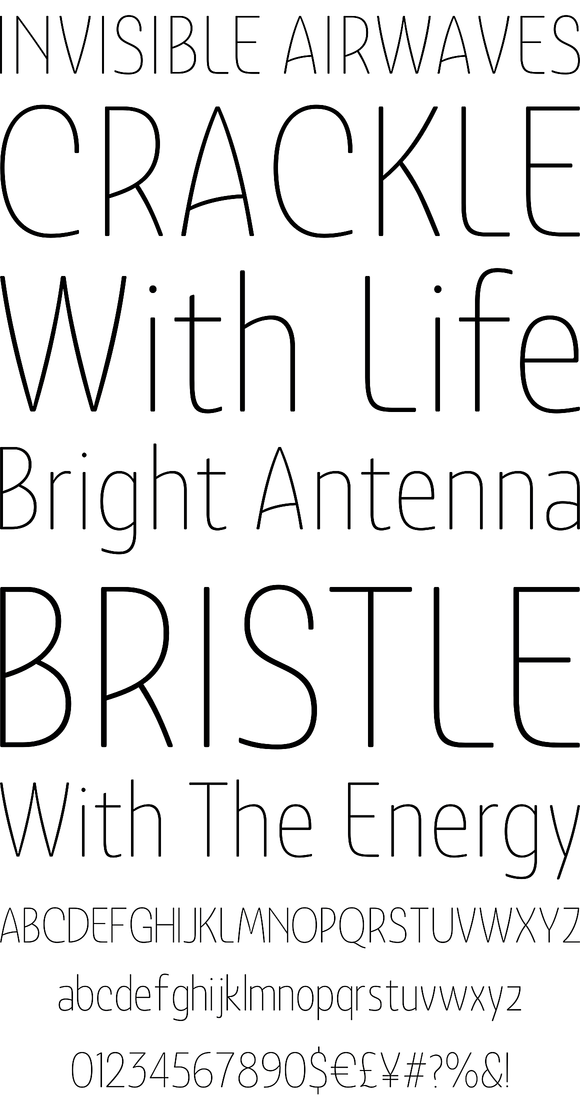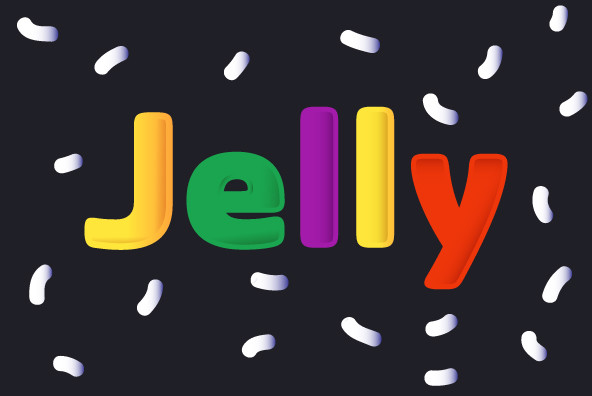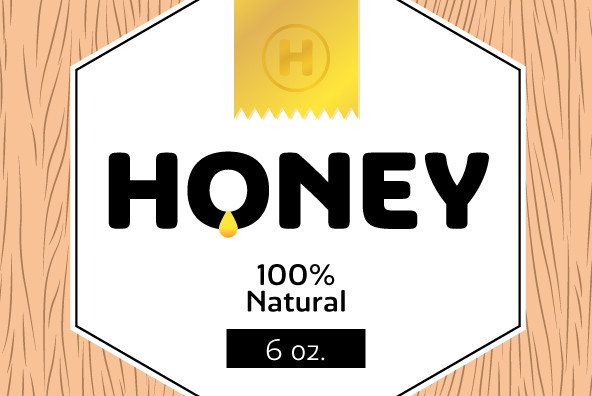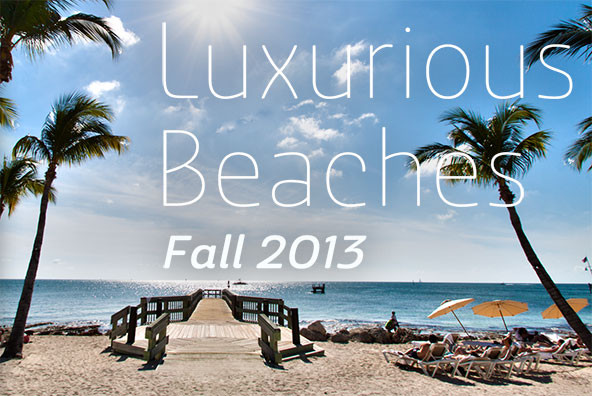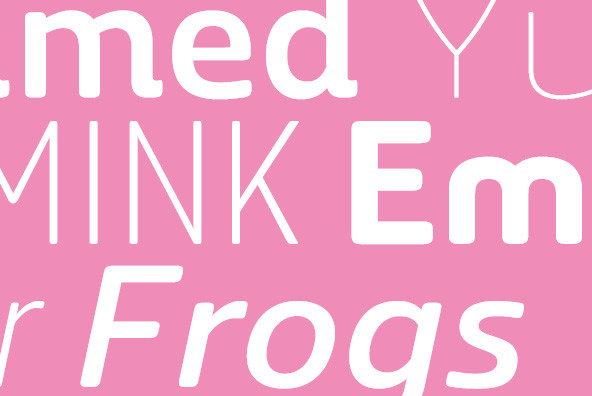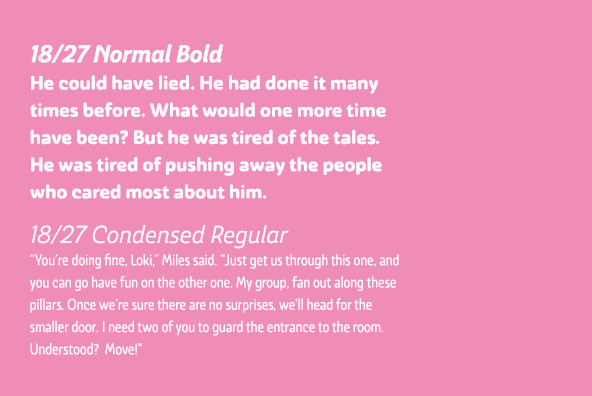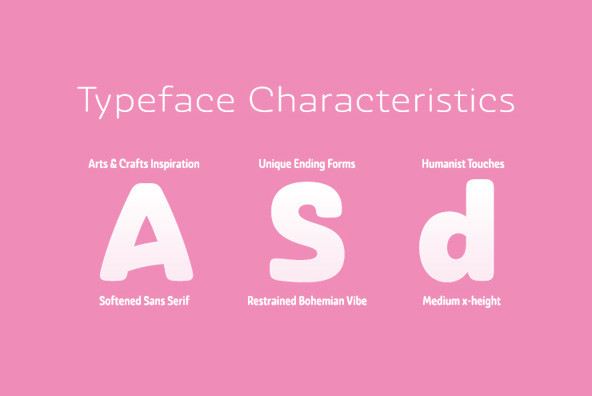
Following the success of the Ashemore family, is became clear that a rounded version of Ashemore would be a great addition to the product line that would allow designers even more design choices Ashemore Softened’s rounder forms compliment the face well a...
Following the success of the Ashemore family, is became clear that a rounded version of Ashemore would be a great addition to the product line that would allow designers even more design choices Ashemore Softened’s rounder forms compliment the face well as the original font esqued straight lines The rounded terminators give the face a sense of friendliness that is unsurpassed The distinct and flamboyant style of Art Nouveau and the Arts and Crafts style remain, but the blunted terminators give the face a more technological and contemporary look and feel The Ashemore Softened family has a full range of six weights from thin to black and includes condensed and extended options for a total of 36 fonts The typeface also includes some unique OpenType alternates that make the superfamily even more versatile Ashemore Softened is equipped for complex professional typography, including alternates, small caps and many alternate characters The face also has a number of numeral sets, including tabular figures, fractions, old-style, lining figures and superiors and inferiors OpenType-capable applications such as Quark or the Adobe Suite can take full advantage of automatic ligatures and alternates You can find these features demonstrated in the pdf brochure Ashemore Softened also includes the glyphs to support a wide range of languages, including Central, Eastern and Western European languages In all, Ashemore Softened supports over 40 languages that use the extended Latin script, making the new addition a great choice for multi-lingual publications and packaging The original Ashemore was designed by Jeremy Dooley with production assistance from Lucas Azevedo and Marcelo Magalhaes Kerning assistance from iKern